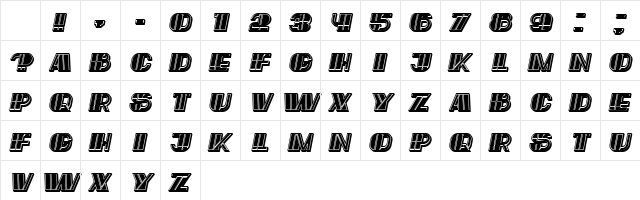
Large Filled is a composed and adaptable typeface that performs quietly and consistently across a wide range of design contexts. The slanted form adds forward momentum and visual energy.